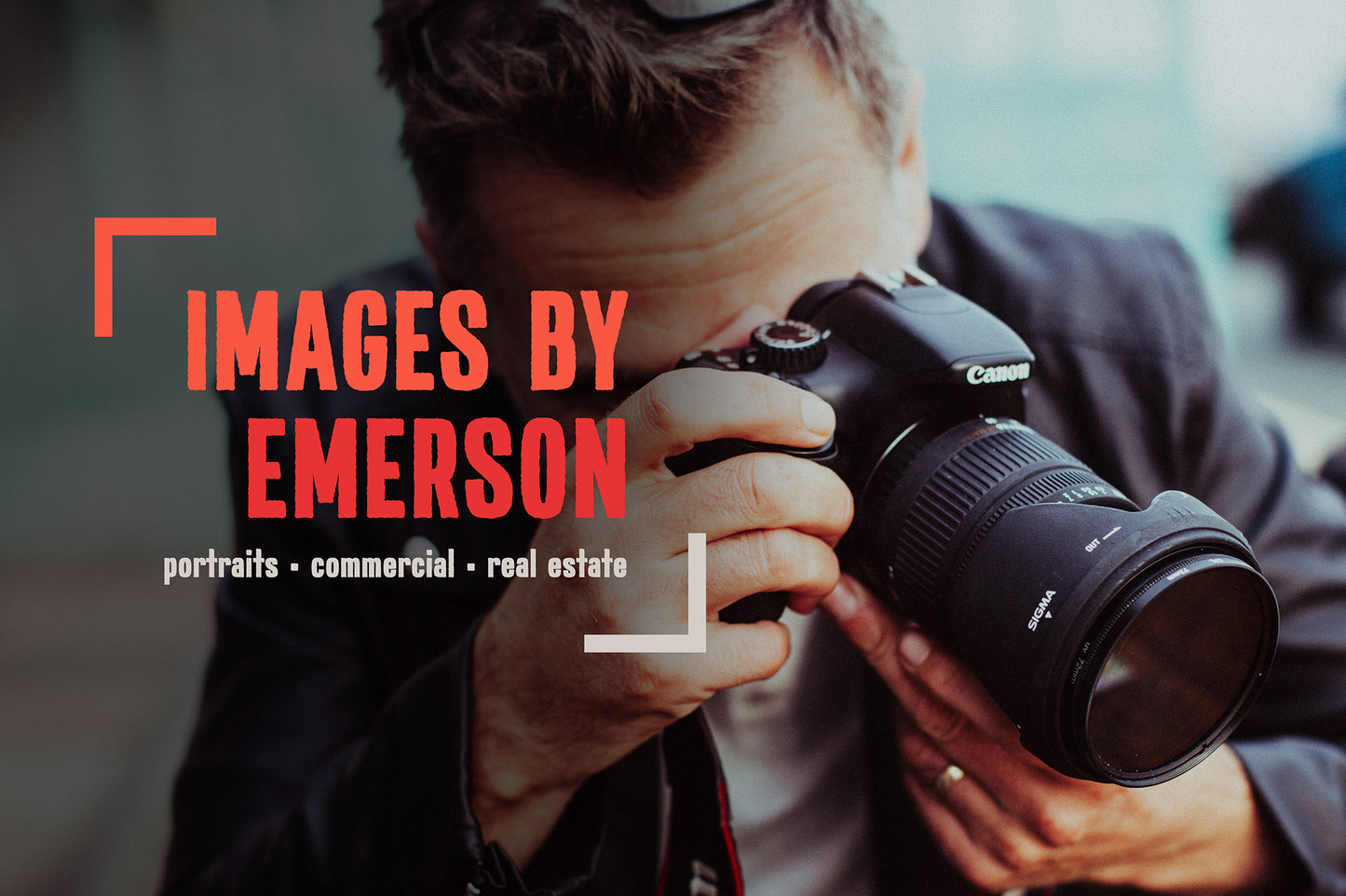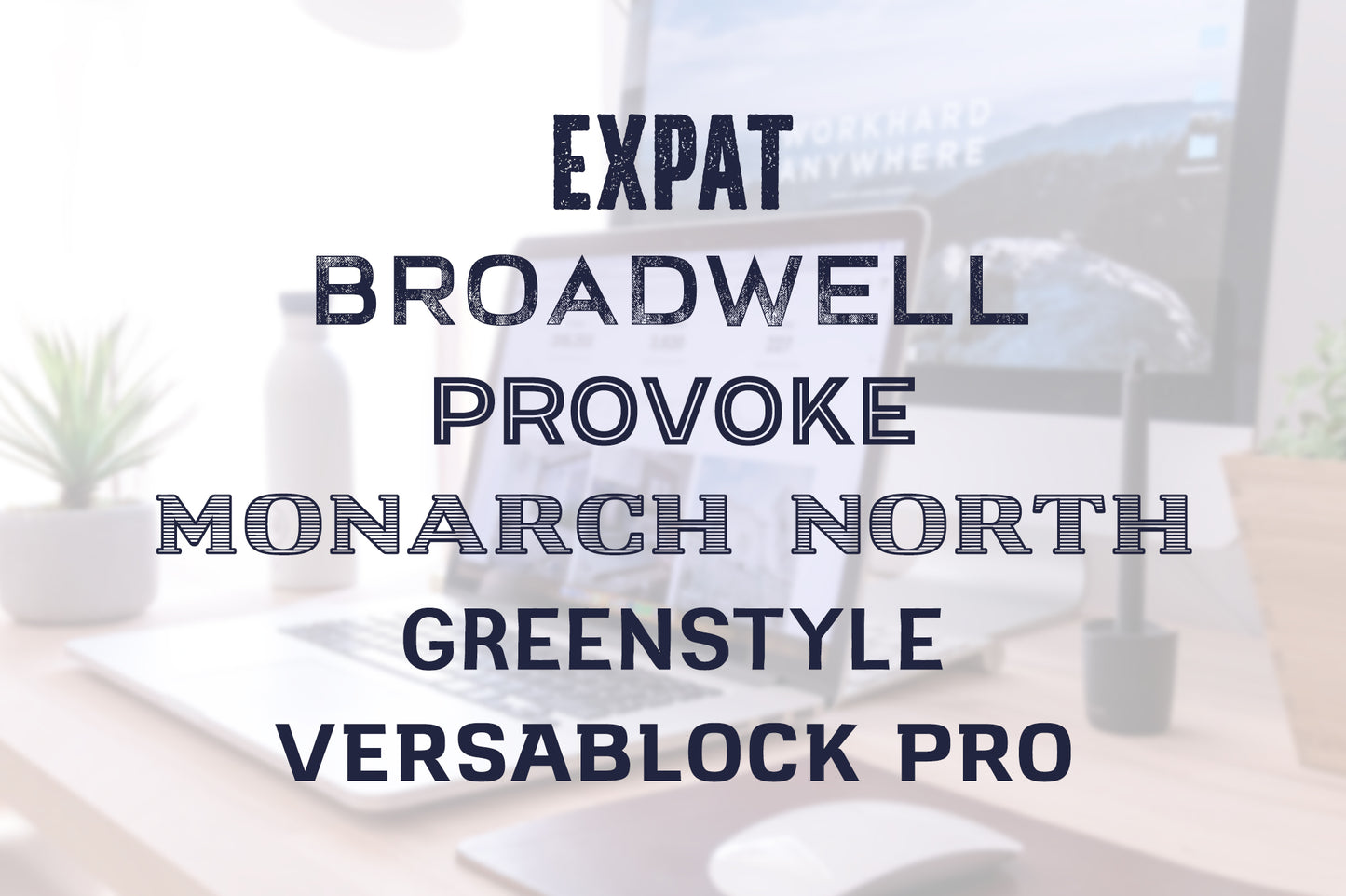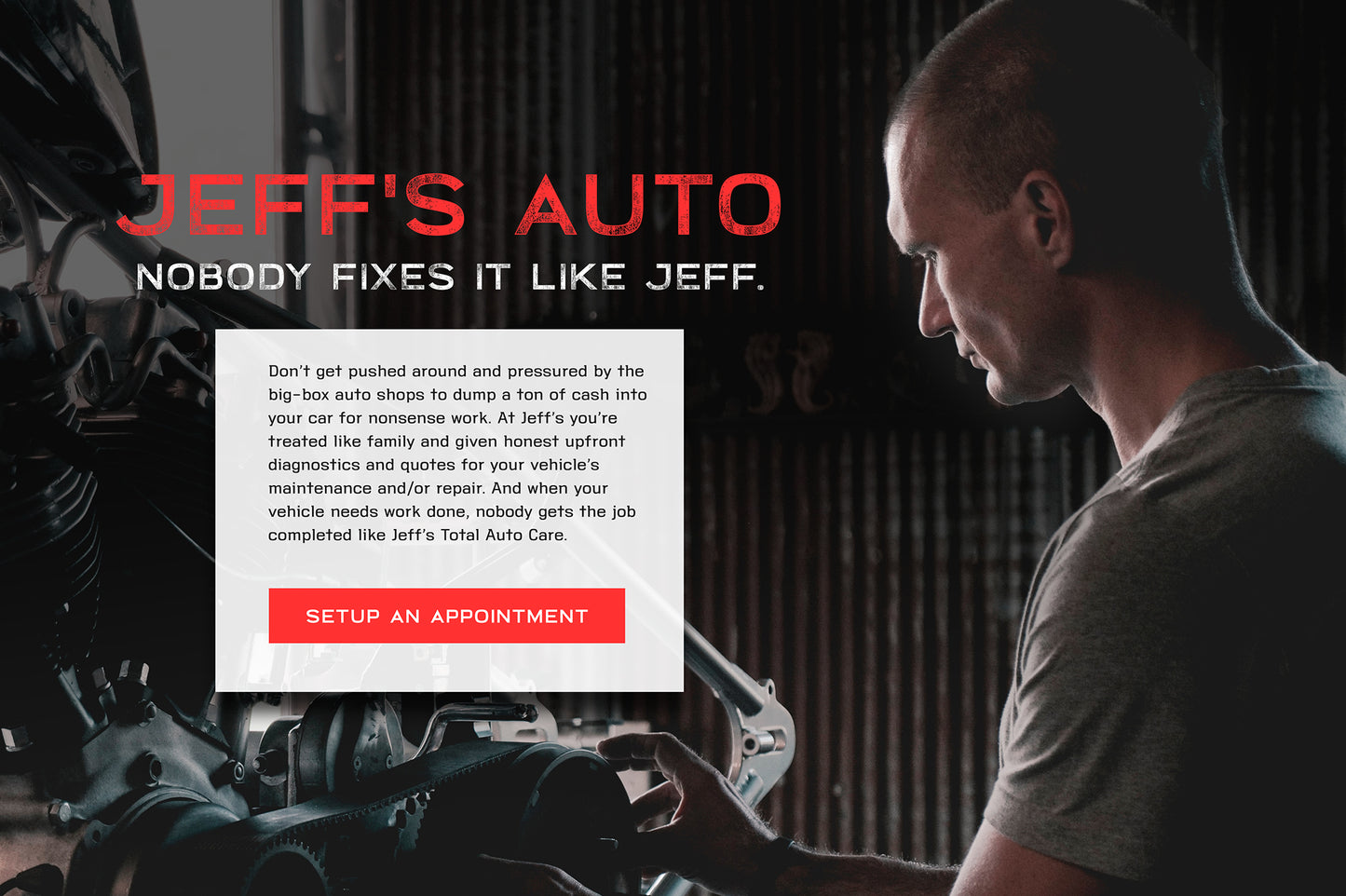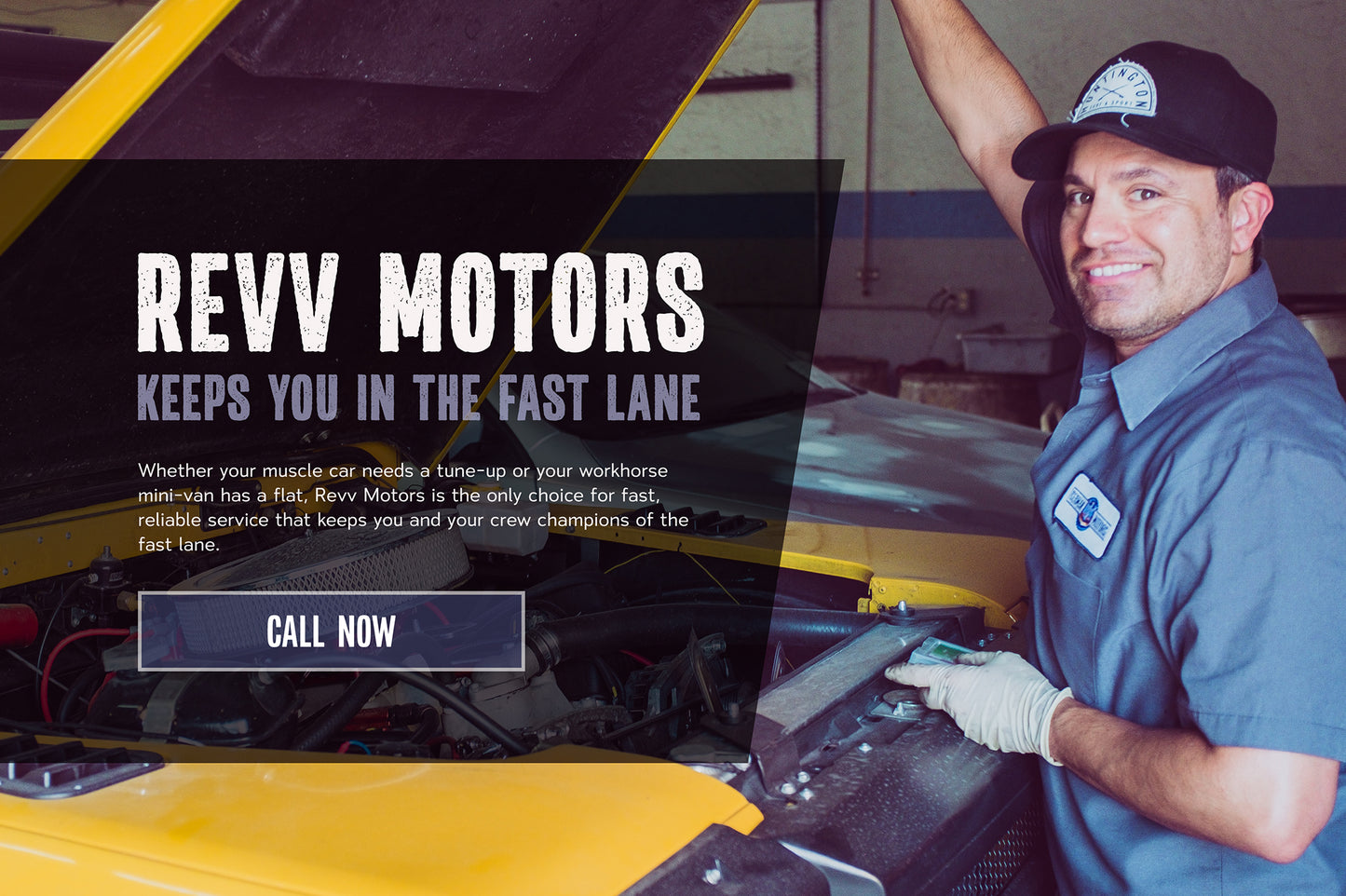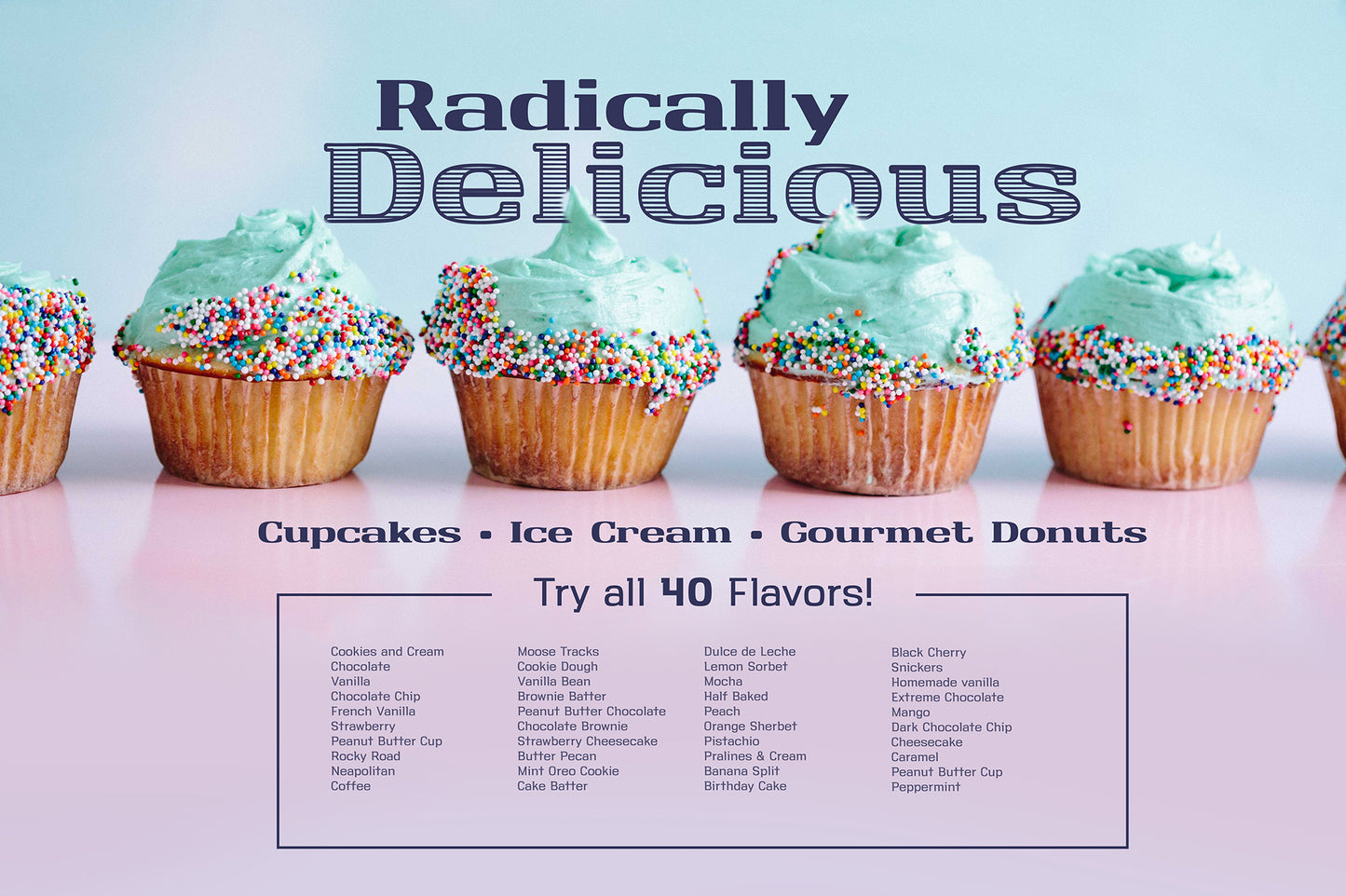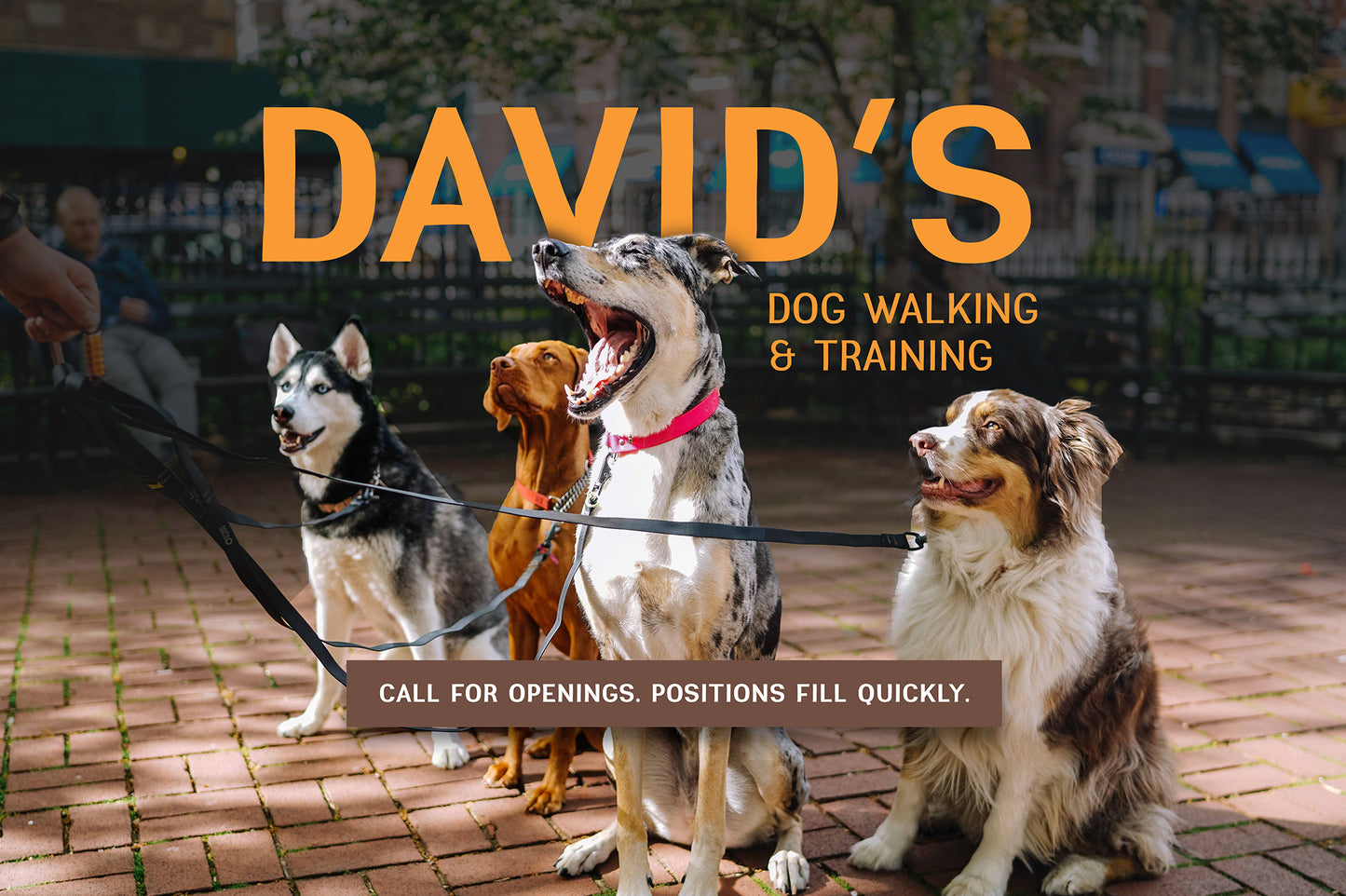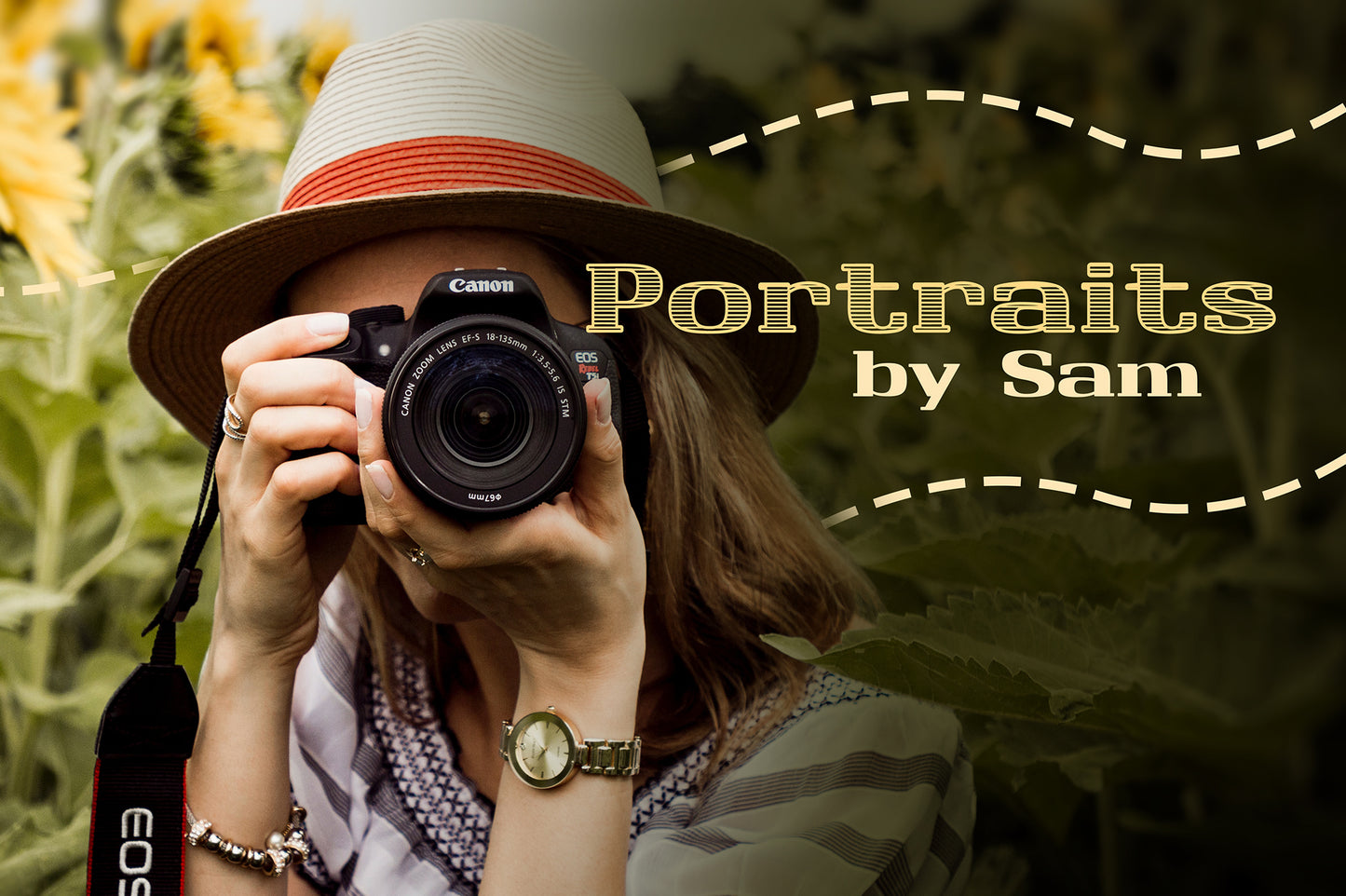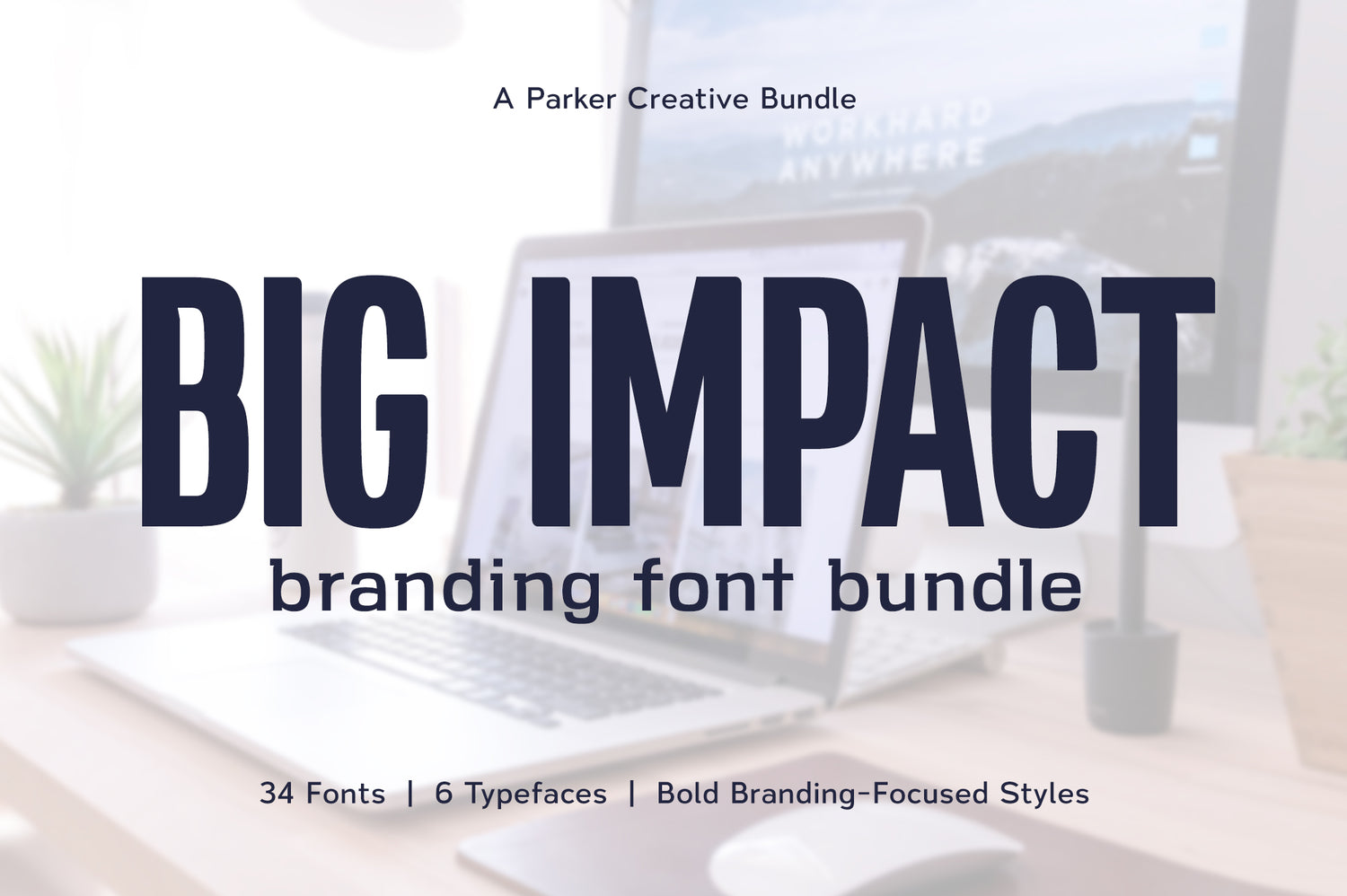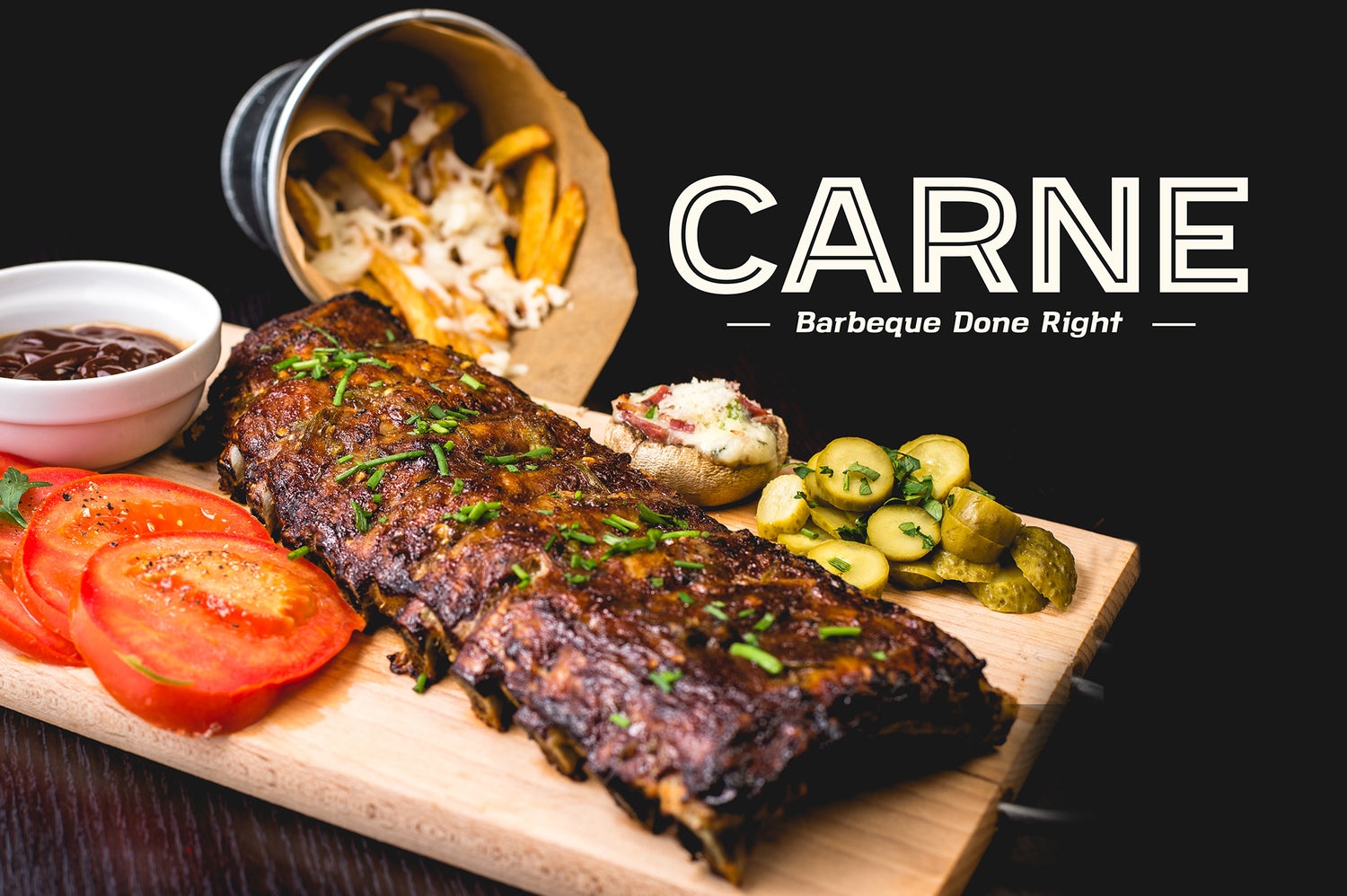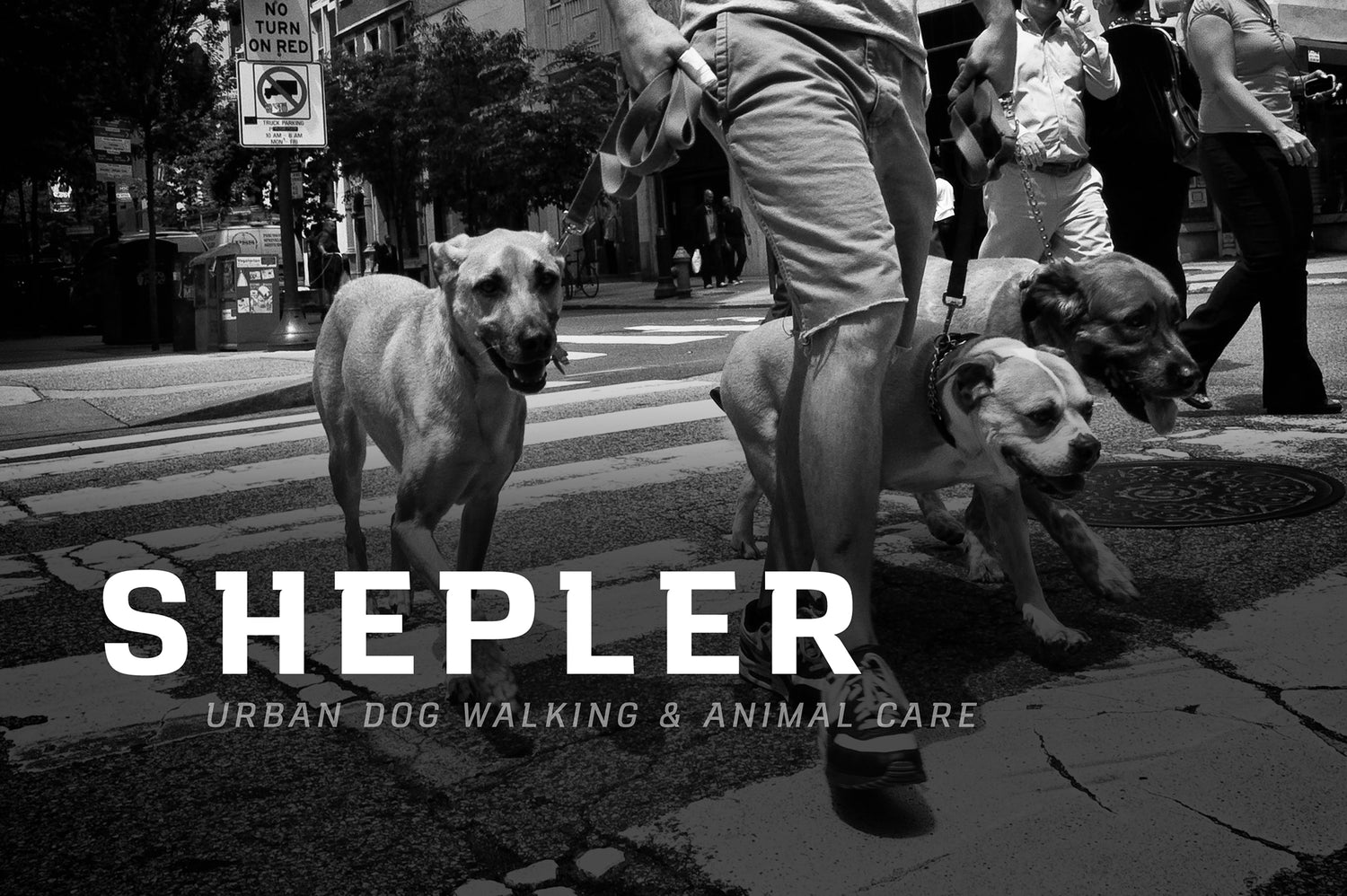
Big Impact Branding Font Bundle
Make your small business shine with distinct typefaces included in the Big Impact Branding Font Bundle! This bundle was put together to give you the flexibility to stand out with multiple highly-stylized typefaces from Parker Creative for one low price. Create a massive array of high-end looks for anything from individual brands (dog walkers, photographers, social media influencers), to multi-store businesses (restaurants, auto repair shops, cleaning services) with ease.
Broadwell: Create a strong presence with a distressed font featuring clean lines and curves, balanced visual weight, and striking sharp edges all in a wide body. Broadwell works well to draw attention in titles, headlines, and large text with it's aggressive horizontal expanse (consider an all-caps title for even more command).
Expat: Breathe life into your headings with this handcrafted, rugged design. It's tall and narrow characters create a big impression while randomized distressing and imperfect edges create a truly off-road aesthetic. Expat comes with 4 style variations including Standard, Rough, Distressed, and Hatch.
Greenstyle: This casual handcrafted typeface is a hybrid design: it features both the imperfections of natural handwriting and the cleanliness of carefully crafted even weighted sans-serifs. Greenstyle is all about the rustic handcrafted aesthetic which creates a casual, yet formal look.
Monarch North: Featuring a thick slab serif with high contrast weight, thick rounded serifs, and unique horizontal line hatching, Monarch North is a uniquely modern take on a classic typeface category. Give your designs a classic sense of style with a modern twist and a friendly aesthetic.
Provoke: This typeface is boldly rooted in modern urban culture and can create two incredibly distinct visual styles based on the specific font that is utilized. In all, Provoke comes in 10 font variations for a great amount of versatility for your project. Whether you're looking for modern chic, or streetlamp funk, this typeface has you covered.
VersaBlock Pro: Create visually striking projects with VersaBlock Pro, a versatile geometric typeface built with mathematical curves and stylized cutouts. With a spunky mechanical look, VersaBlock Pro is ideal for sleek and energetic designs.